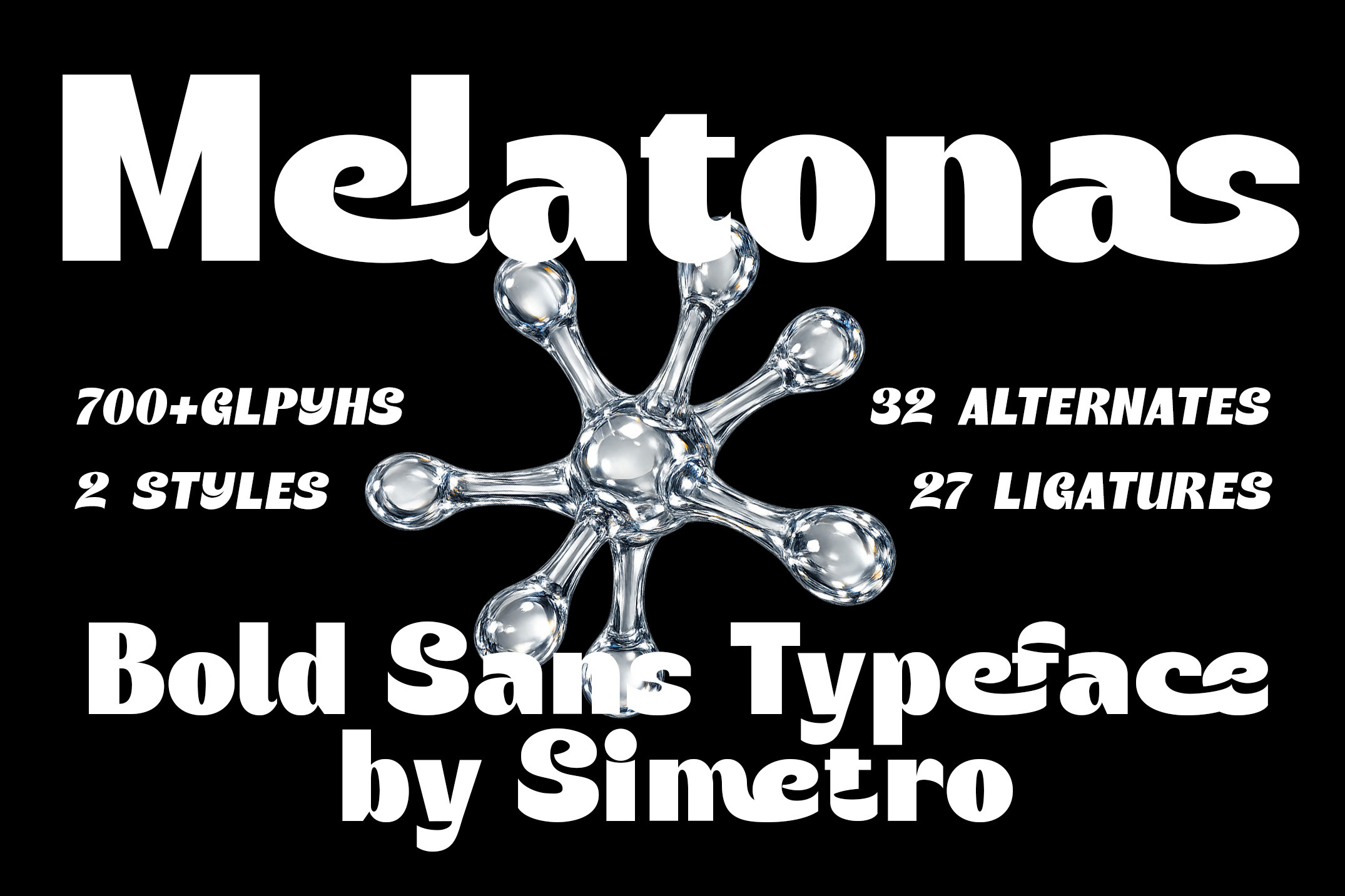
Melatonas - A Bold Display Typeface
Melatonas is a bold display typeface designed to deliver strong visual impact with confident letterforms and smooth, expressive curves. Its solid structure and contemporary style make it perfect for eye-catching headlines, modern branding, and statement typography.
The typeface comes in Regular and Italic styles, offering flexibility for both primary titles and dynamic typographic accents. Melatonas also includes extensive OpenType features, with *19 stylistic alternates (ss01) for uppercase, *13 stylistic alternates (ss01) for lowercase, and 29 ligatures, giving designers the freedom to create unique lettering combinations and distinctive visual compositions.
With broad multilingual support, Melatonas covers Western European, Central European, South Eastern European, South American, Oceanian, selected Pan-African languages, Vietnamese, and Esperanto, making it suitable for international branding and global design projects.